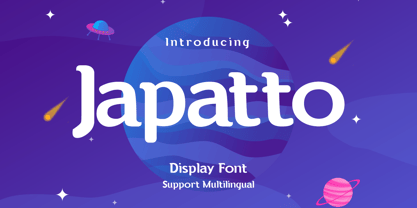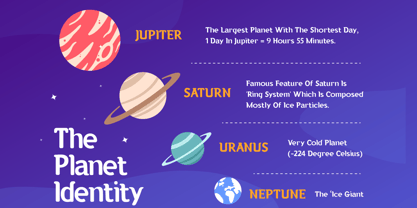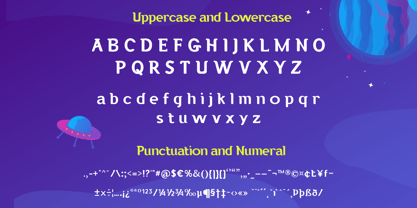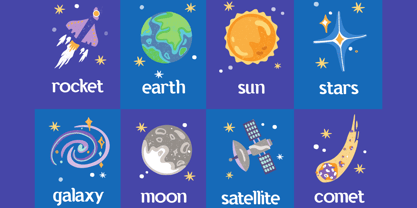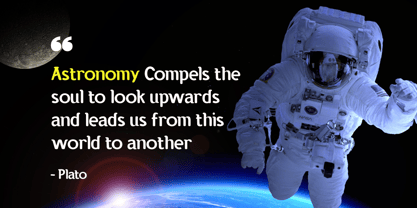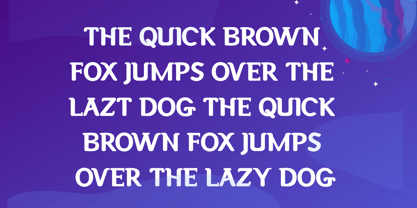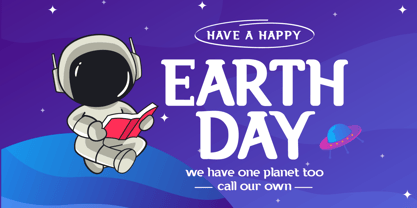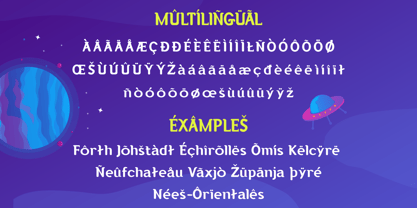
Japatto
Japatto is a display font that’s all about impact. Its bold, distinctive characters make it perfect for headlines, posters, and other designs where you need to make a strong impression. With Japatto, your message will stand out from the crowd.
- All glyphs and Feature
- PUA Encoded Characters, Fully accessible without additional design software.
- Fonts include Multilingual: Support for 85 languages.